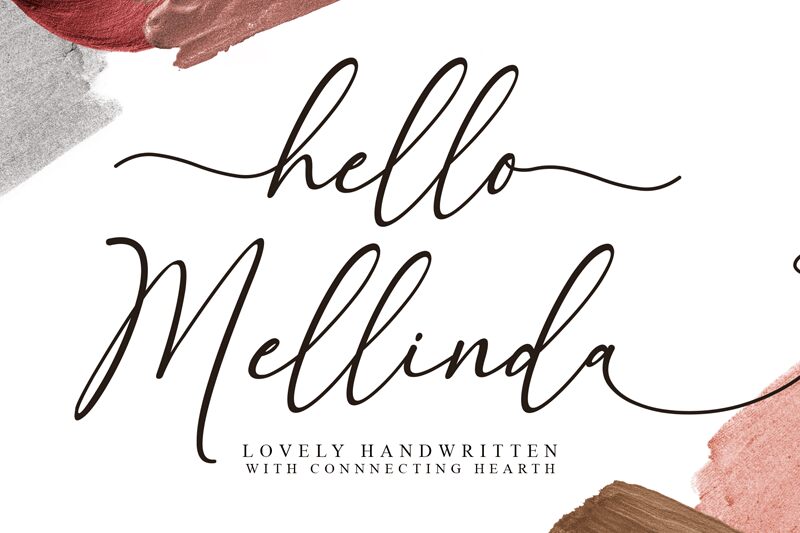
Hello Mellinda Demo
The Hello Mellinda font, crafted by MJB Letters, exudes a captivating, handwritten charm with its light, flowing strokes. This alluring typeface emanates a sense of warmth and personality, inviting the viewer to engage with its organic, expressive lines. The font's whimsical, yet refined aesthetic makes it a versatile choice for a wide range of design applications, from editorial layouts and branding to packaging and invitation designs.
Boasting a delicate balance between elegance and playfulness, Hello Mellinda effortlessly adapts to various design contexts, lending a touch of sophistication and personal flair to each project. Its distinctive character and fluid movement have the power to captivate audiences, making it an excellent selection for projects seeking to convey a handcrafted, artisanal aesthetic.